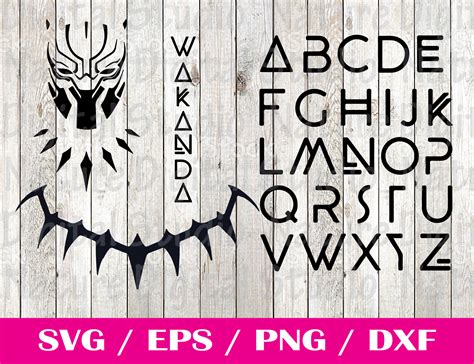
Wakanda Font Generator. Inspired by the movie and movement of the black panther movie. The lowercase is based on the wakandan style alphabet the upper case is a partial english translation.